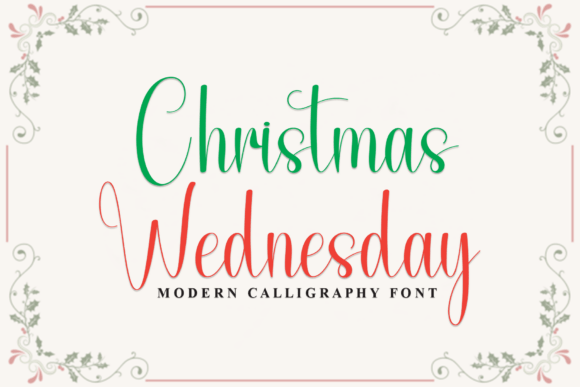
Introducing Christmas Wednesday Font: Elevate Your Designs with Artistic Flair and Contemporary Elegance
Are you looking for a font that can add a touch of sophistication and creativity to your designs? Look no further than Christmas Wednesday Font, a stylish script font that embodies the perfect blend of artistic flair and contemporary elegance. With its fluid brush strokes, dynamic curves, and expressive letterforms, this font is sure to capture the attention of your audience and leave a lasting impression.
The Inspiration Behind Christmas Wednesday Font
Christmas Wednesday Font is inspired by the art of hand-painted calligraphy, but with a modern twist. The font’s creator aimed to capture the essence of traditional calligraphy and infuse it with a contemporary feel, making it perfect for designs that require a touch of sophistication and elegance. The result is a font that exudes a sense of artistic flair and refinement, making it ideal for a wide range of design applications.
Key Features of Christmas Wednesday Font
So, what makes Christmas Wednesday Font so special? Here are some of its key features:
- Fluid Brush Strokes: The font features fluid brush strokes that give it a natural, hand-painted look and feel.
- Dynamic Curves: The font’s dynamic curves add a sense of movement and energy to your designs.
- Expressive Letterforms: Each letterform is carefully crafted to convey a sense of elegance and sophistication.
- Modern Twist: The font’s modern twist sets it apart from traditional calligraphy fonts, making it perfect for contemporary designs.
Use Cases for Christmas Wednesday Font
Christmas Wednesday Font is a versatile font that can be used in a wide range of design applications, including:
- Logos: Create a lasting impression with a logo that features Christmas Wednesday Font.
- Invitations: Add a touch of elegance and sophistication to your invitations, whether it’s for a wedding, birthday party, or corporate event.
- Packaging: Stand out on store shelves with packaging that features Christmas Wednesday Font.
- Social Media Graphics: Elevate your social media graphics with a font that exudes creativity and sophistication.
Benefits of Using Christmas Wednesday Font
So, why should you choose Christmas Wednesday Font for your designs? Here are some benefits:
- Visual Impact: The font’s unique features and elegant design make it sure to grab the attention of your audience.
- Versatility: Christmas Wednesday Font can be used in a wide range of design applications, making it a great addition to your font library.
- Creative Freedom: The font’s expressive letterforms and dynamic curves give you the creative freedom to experiment with different design ideas.
- Sophistication: The font’s elegant design and modern twist make it perfect for designs that require a touch of sophistication.
Tips for Using Christmas Wednesday Font
Here are some tips for getting the most out of Christmas Wednesday Font:
- Experiment with Different Sizes: The font looks great in large and small sizes, so don’t be afraid to experiment.
- Pair it with Other Fonts: Christmas Wednesday Font pairs well with other fonts, so try combining it with a sans-serif font for added contrast.
- Use it for Headlines: The font’s bold and expressive letterforms make it perfect for headlines and titles.
- Add a Personal Touch: Use the font to add a personal touch to your designs, whether it’s a handwritten note or a custom illustration.
In conclusion, Christmas Wednesday Font is a stylish script font that offers a unique blend of artistic flair and contemporary elegance. With its fluid brush strokes, dynamic curves, and expressive letterforms, it’s perfect for designs that require a touch of sophistication and creativity. Whether you’re creating a logo, invitation, packaging, or social media graphic, Christmas Wednesday Font is sure to deliver a lasting impression.
- What is Christmas Wednesday Font?: Christmas Wednesday Font is a stylish script font that features fluid brush strokes, dynamic curves, and expressive letterforms.
- What is Christmas Wednesday Font used for?: The font can be used in a wide range of design applications, including logos, invitations, packaging, and social media graphics.
- Is Christmas Wednesday Font easy to read?: Yes, the font is designed to be easy to read, even in small sizes.